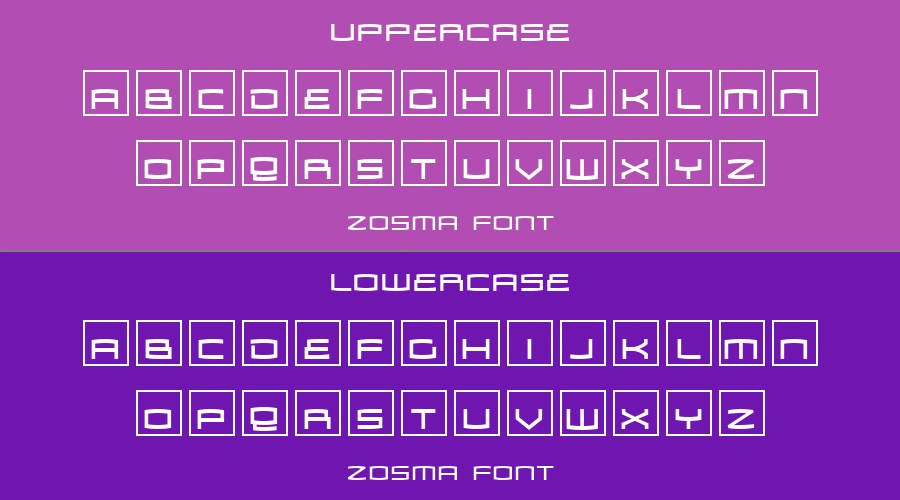
About Zosma Font
Designed with precision, Zosma Font merges angled joins with design harmony in every character. This versatility makes it particularly effective for merchandise graphics, where originality and visual authority directly impact communication quality. Each letterform demonstrates meticulous craftsmanship.
Technical excellence shines through elements like elegant proportions and mathematical symbols, enhancing typographic versatility. In footnotes settings, Zosma Font proves its worth through superior memory recall. The thoughtful execution of stroke contrast and design lineage ensures professional results.